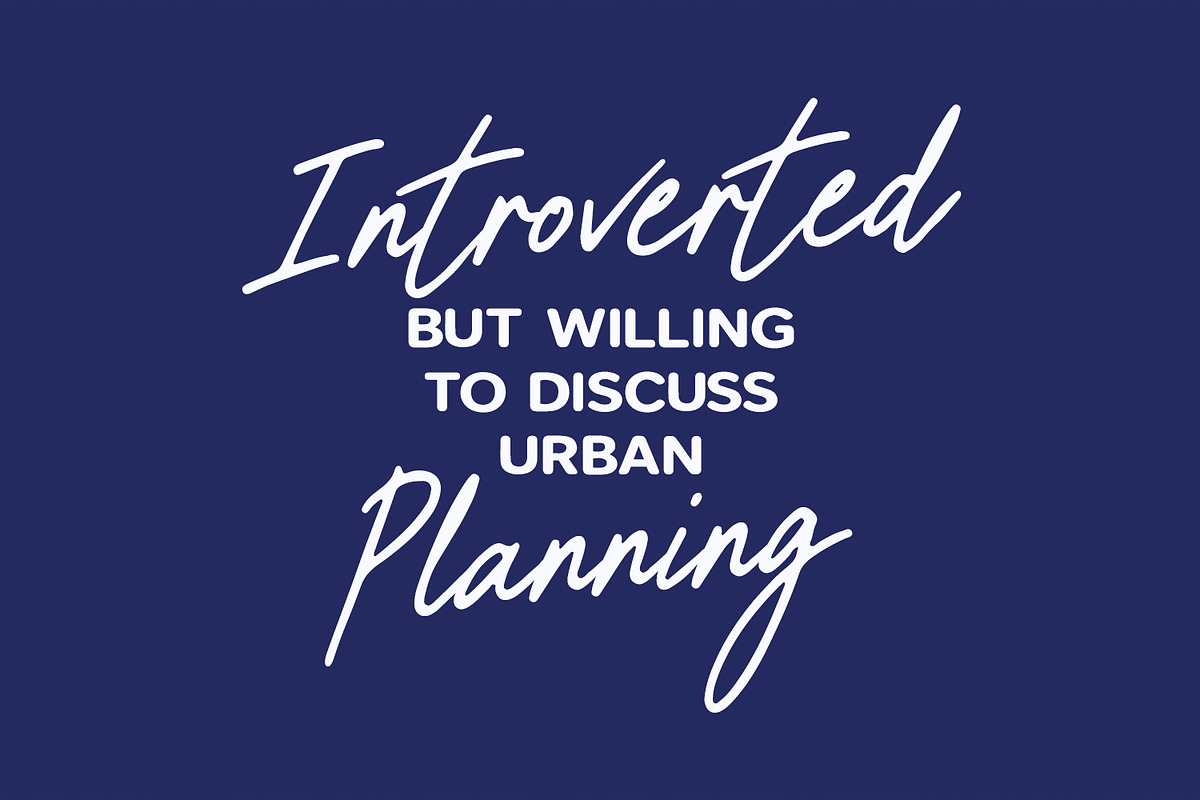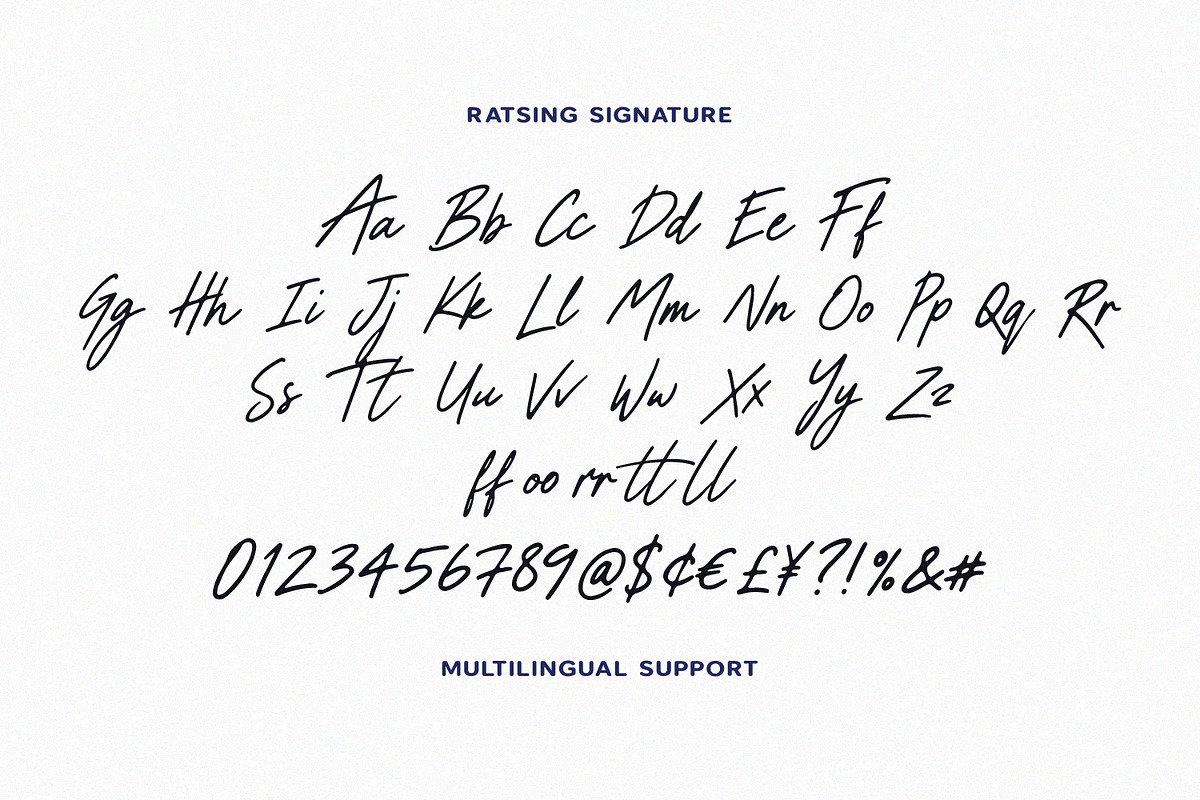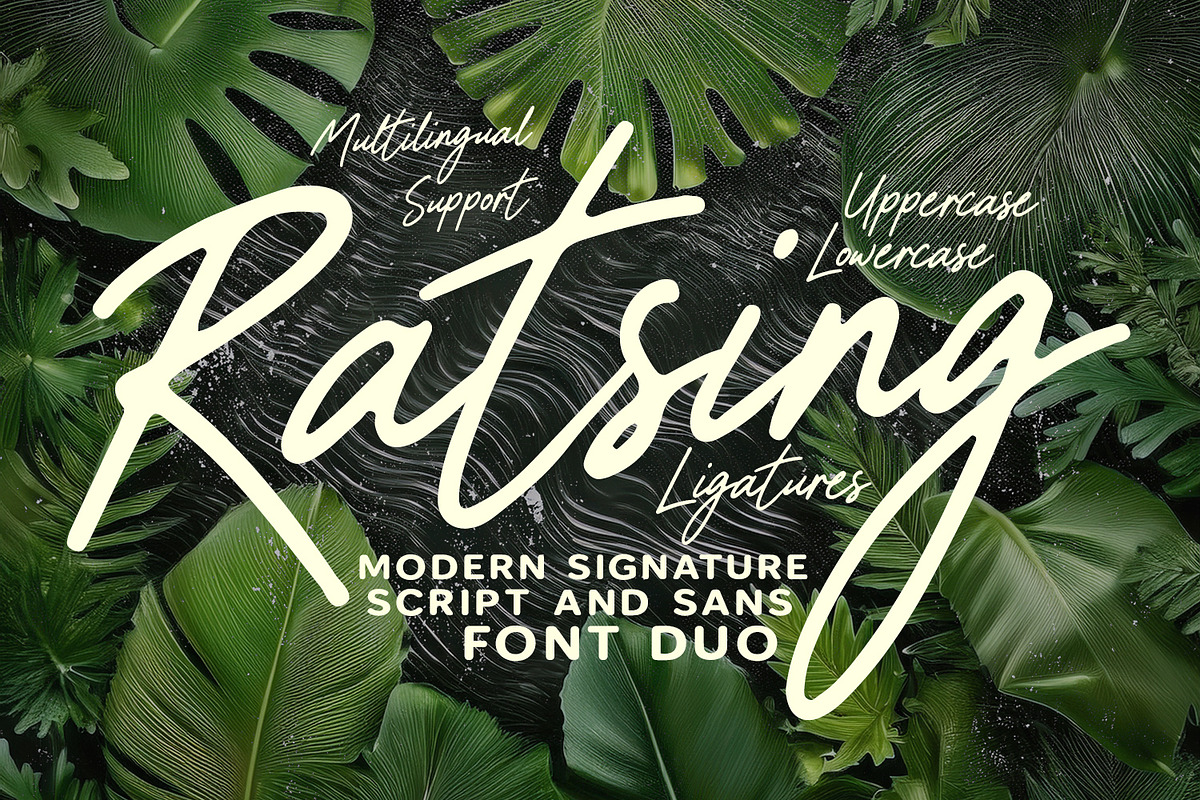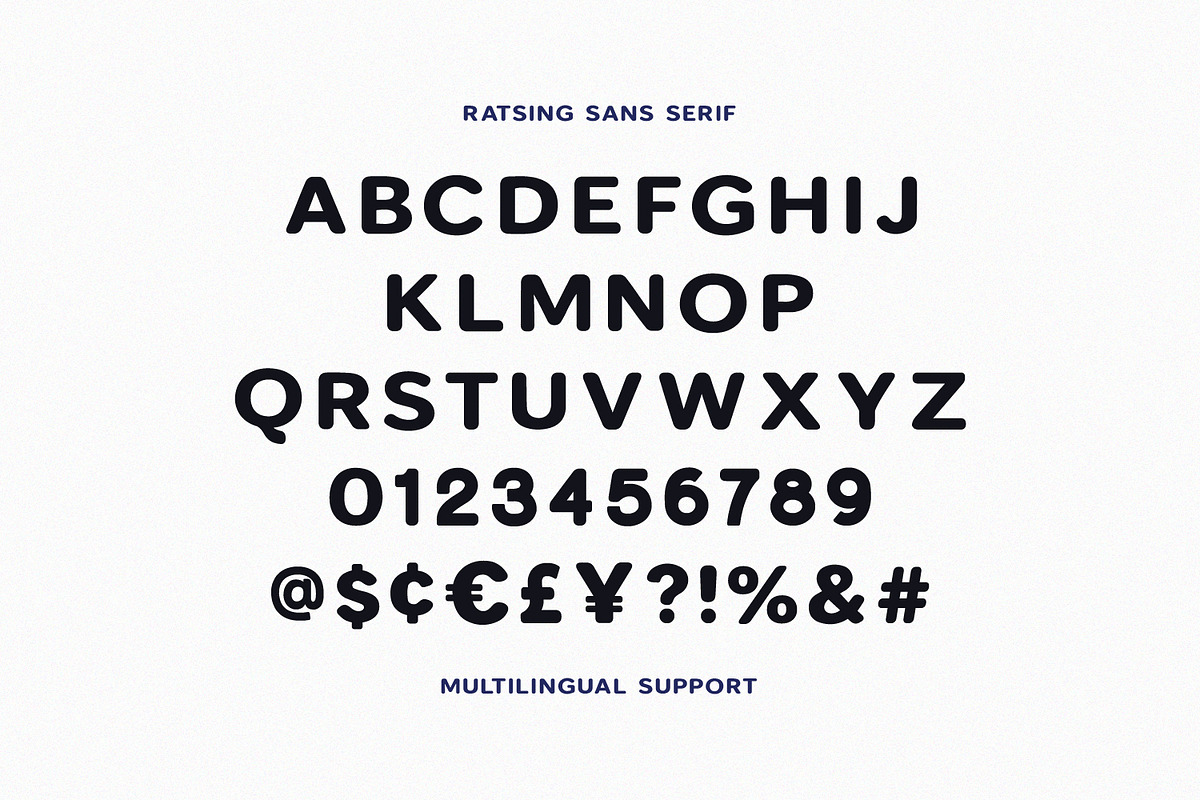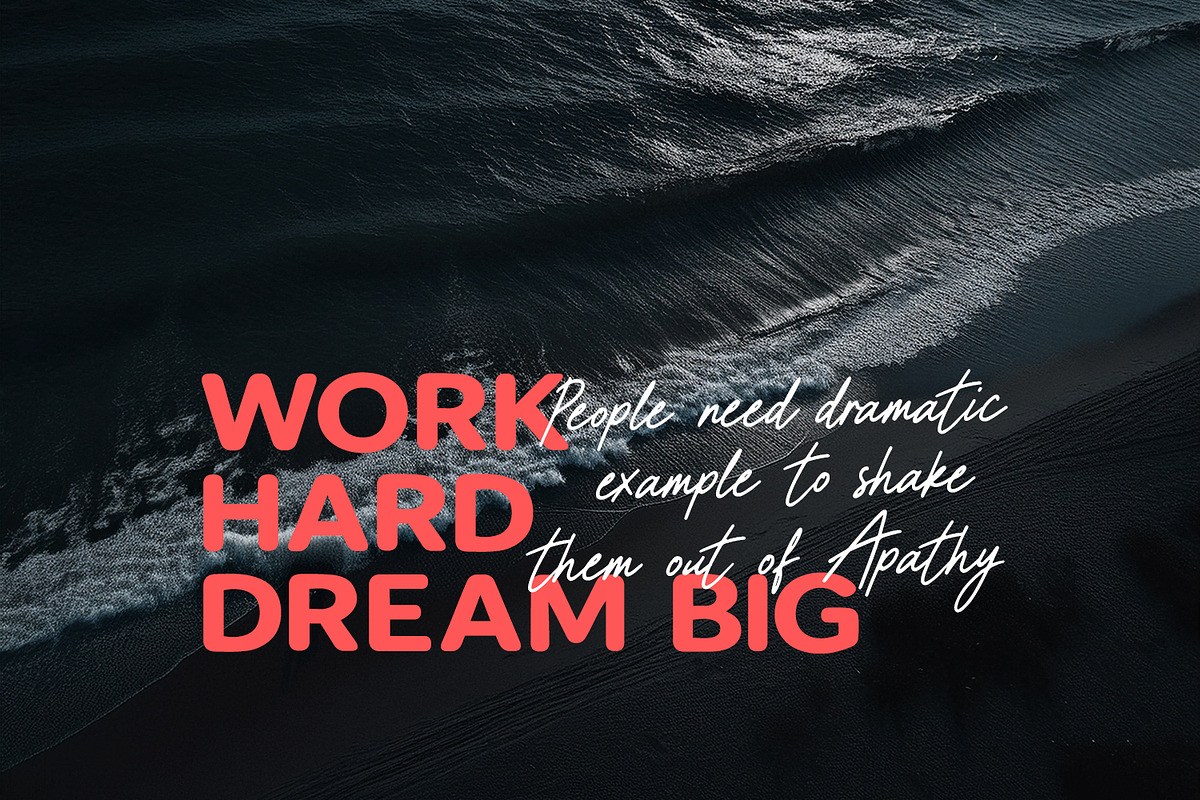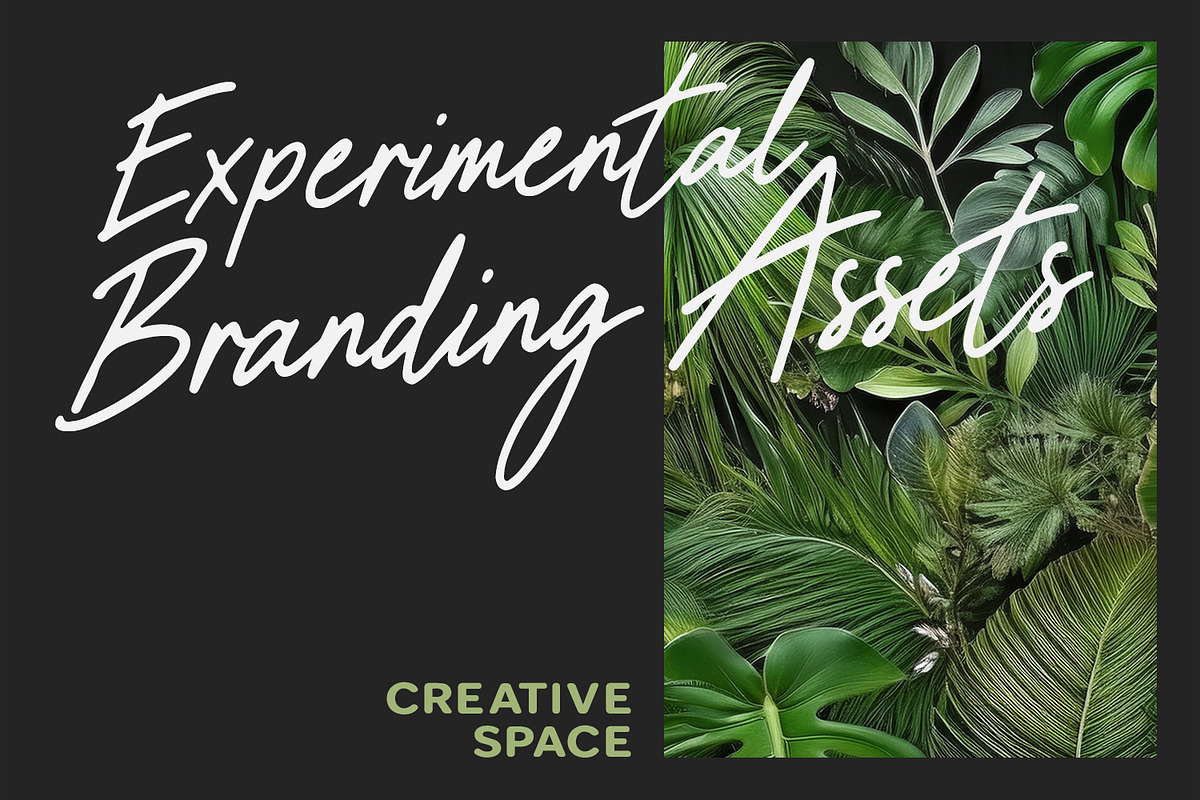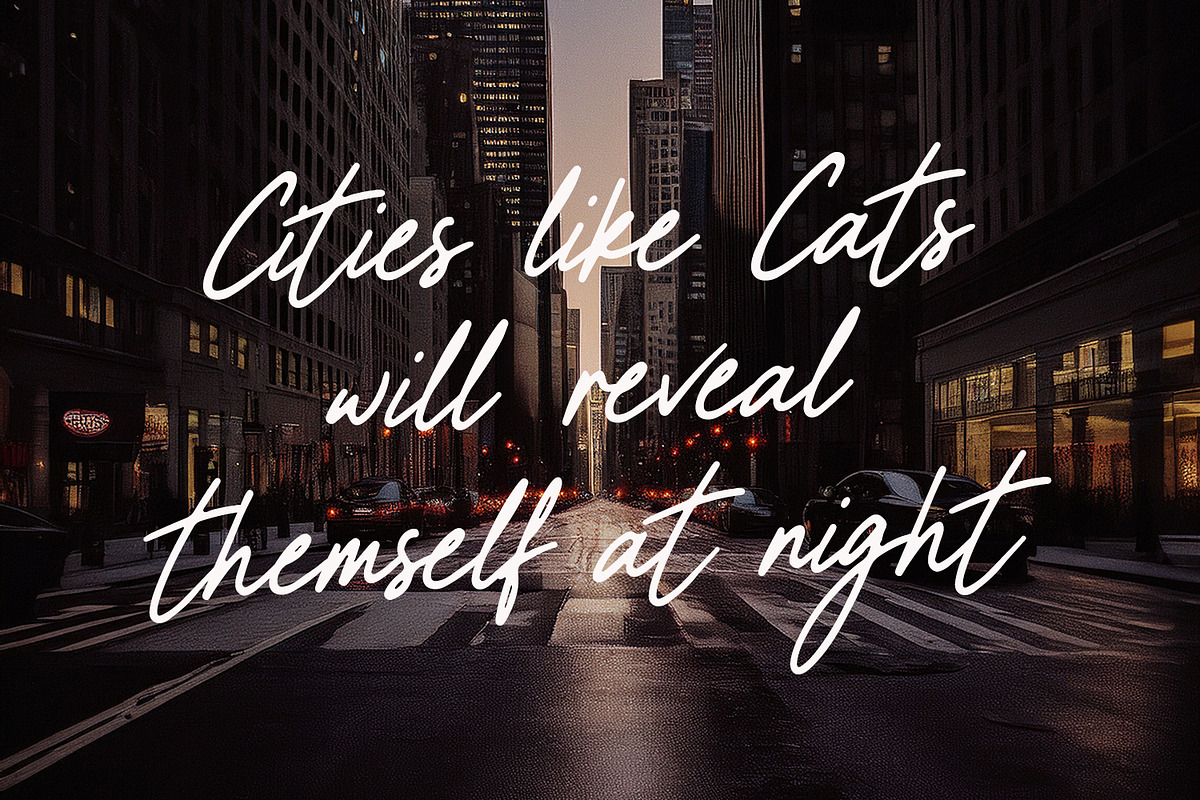
Ratsing Signature Script Sans Duo
Ratsing is a versatile font duo combining an elegant, organic signature script with a solid, modern sans serif. Designed with natural handwritten strokes and clean geometric letters, this typographic pair offers contrast and harmony for contemporary creative projects. The handwritten script features stylish ligatures and full multilingual support, making it ideal for expressive headlines and artistic layouts, while the bold sans serif provides high readability for complementary text elements.
This typeface combination is crafted to elevate brand identity design, luxury packaging, editorial layouts, website headers, and promotional graphics. The seamless pairing allows designers to build complete visual concepts with a balanced touch of expressive handwriting and structured typography. Whether applied to social media content, wedding invitations, logo design, or advertising assets, Ratsing delivers a refined, professional aesthetic.